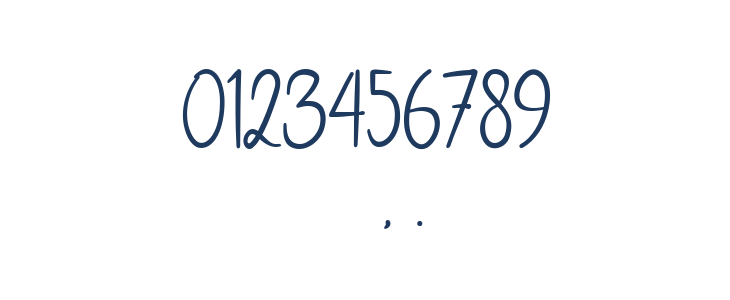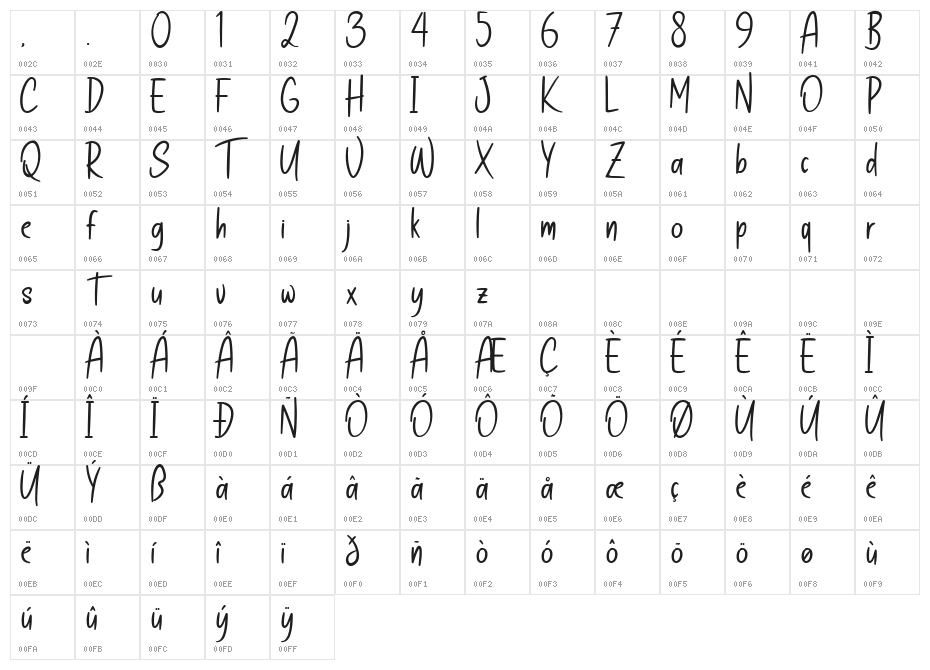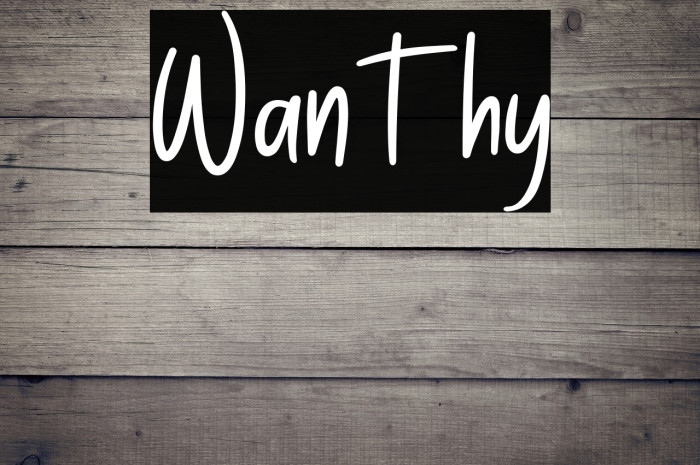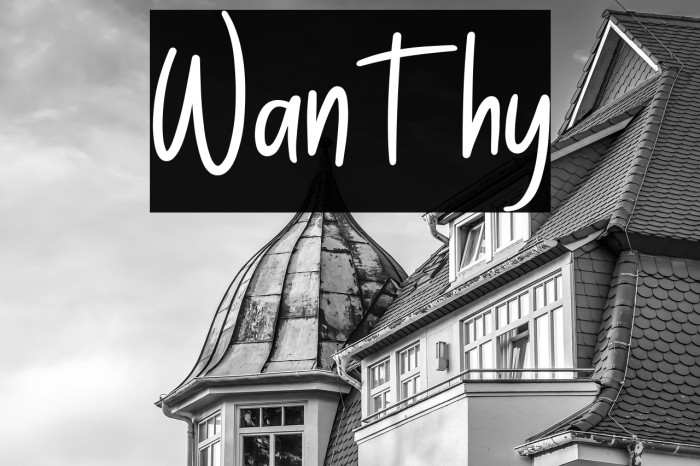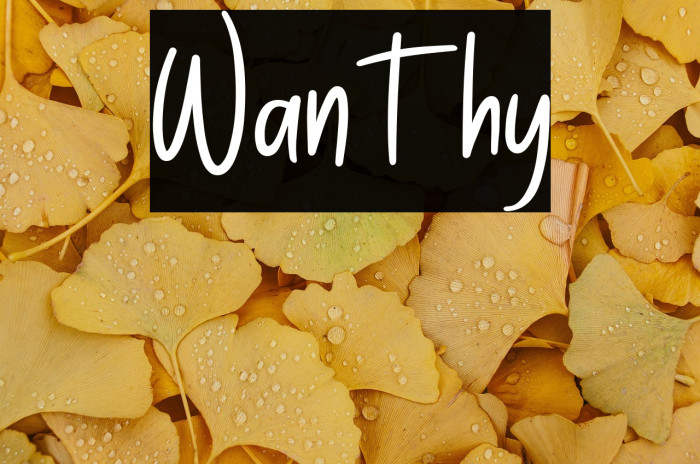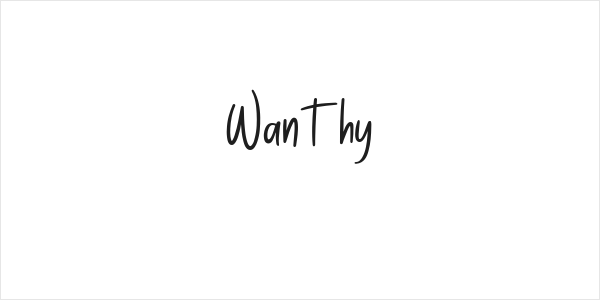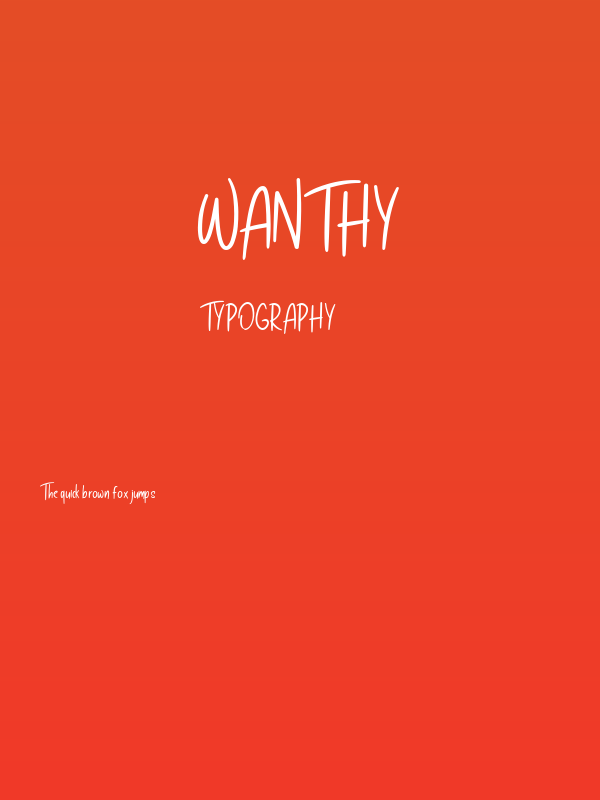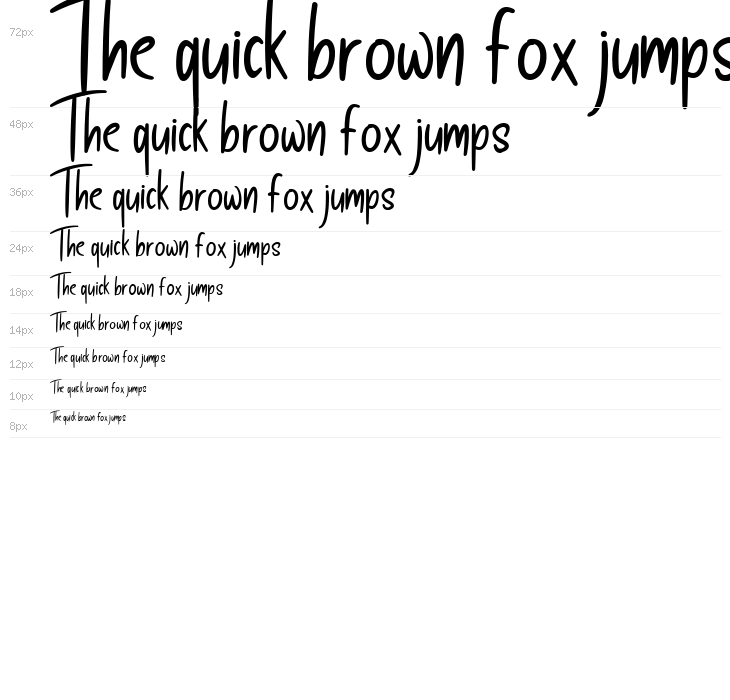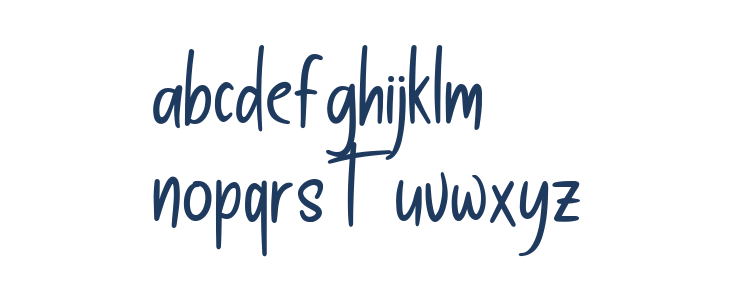
Wanthy Font
Wanthy Description
This font features a playful and casual handwritten style, characterized by its tall, narrow letters and slightly irregular strokes. The uppercase letters are bold and prominent, while the lowercase letters maintain a consistent flow with a touch of whimsy. The numbers are clear and easy to read, matching the overall informal aesthetic. The special characters are simple yet effective, complementing the font's overall design. This font is perfect for projects that require a personal touch or a friendly, approachable vibe.
Overall StyleCasual
Use CaseHeadlines, Informal text, Creative projects
Proposed ProjectsIdeal for greeting cards, children's books, casual branding, and social media graphics.